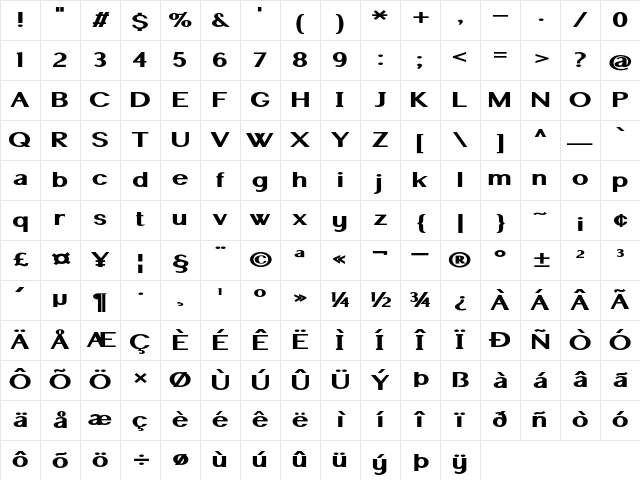
Complete Main Headliner Expanded Bold glyph index. Displaying only characters natively supported by Main Headliner Expanded Bold font.
Main Headliner is a composed and adaptable typeface that performs quietly and consistently across a wide range of design contexts. Its bold stroke weight gives it real presence on the page.